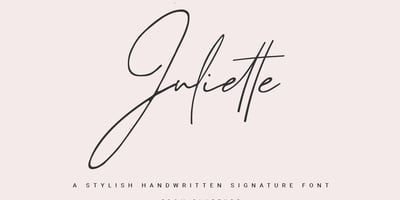
Juliette Signature Font is an exquisitely personal and gracefully flowing typeface, designed to emulate authentic handwritten signatures with elegance and flair. Its beautiful swashes, natural connections, and organic feel make it an ideal choice for projects seeking to convey a sense of bespoke luxury, heartfelt sentiment, or an exclusive touch. Imagine Juliette Signature Font gracing sophisticated wedding invitations, providing a signature look for high-end photography watermarks, or adding a personalized touch to luxury product branding. This versatile font also shines in areas like fashion editorials, beauty product packaging, personal branding, or any design where you want to communicate artistry, intimacy, and a unique, human touch.
What makes Juliette Signature Font truly exciting is its remarkable ability to infuse a sense of genuine personality and warmth into digital text. It’s a font that doesn't just display words; it feels as though it was penned specifically for your design, adding an immediate layer of authenticity and handcrafted charm. Designers frequently seek typefaces that can offer such a specific, elegant handwritten aesthetic while remaining highly readable and versatile. Juliette Signature Font perfectly achieves this balance, providing a captivating option for a wide array of refined and personal applications that aim to leave a memorable impression.
The Juliette Signature Font family typically includes a range of stylistic alternatives and ligatures, which are crucial for achieving that seamless, natural handwritten look. These variations are essential for designers to avoid repetitive letterforms and ensure a fluid, organic flow, enhancing the font's authenticity across different elements of a project. Whether you need a delicate flourish for a personal brand logo or an elegant statement for a product endorsement, the comprehensive choices within the Juliette Signature Font family provide extensive creative freedom. For designs that demand a blend of sophisticated personality and undeniable grace, remember to explore Juliette Signature Font Free Download.